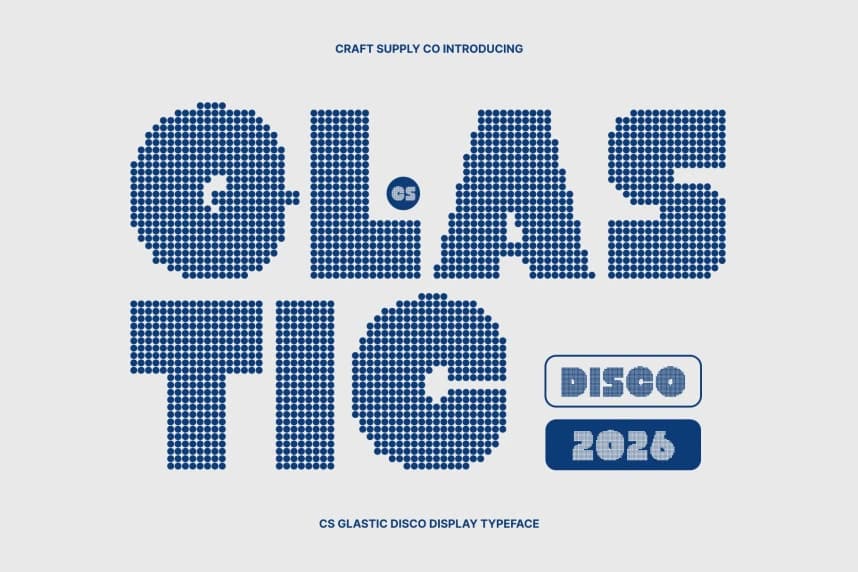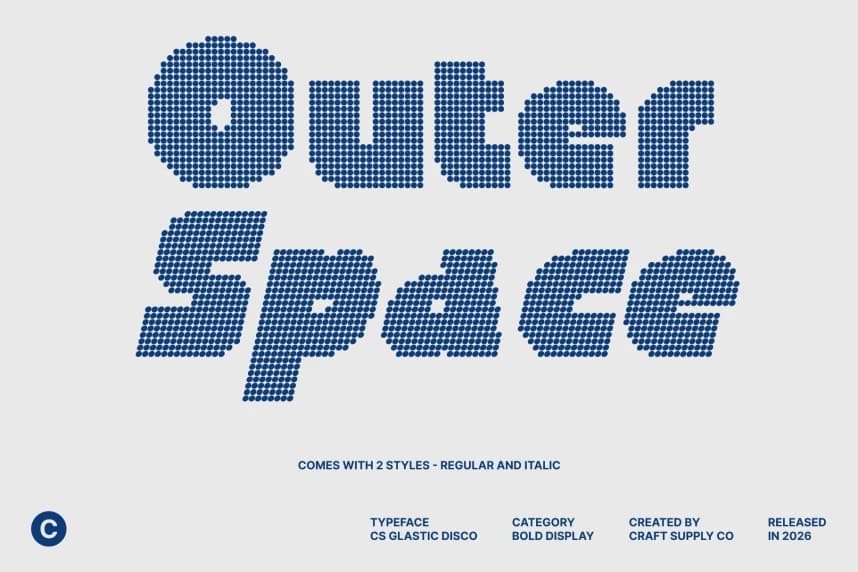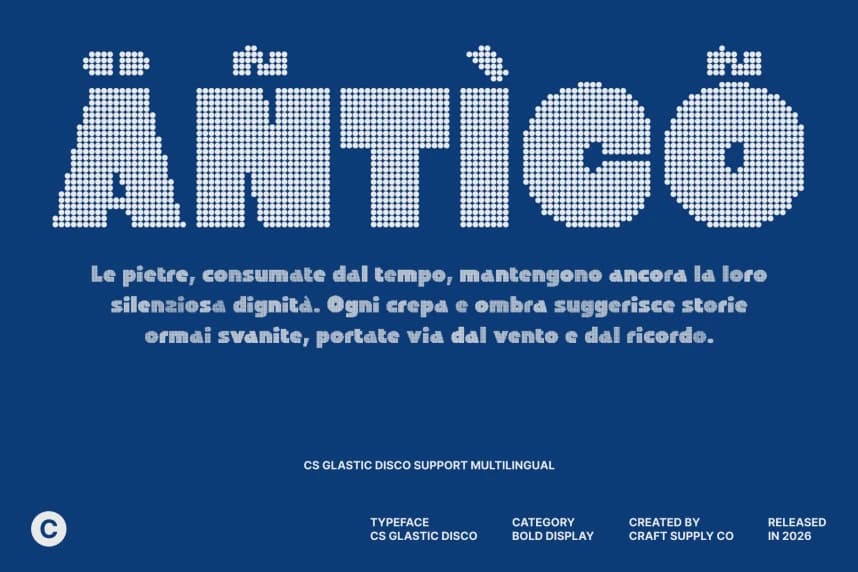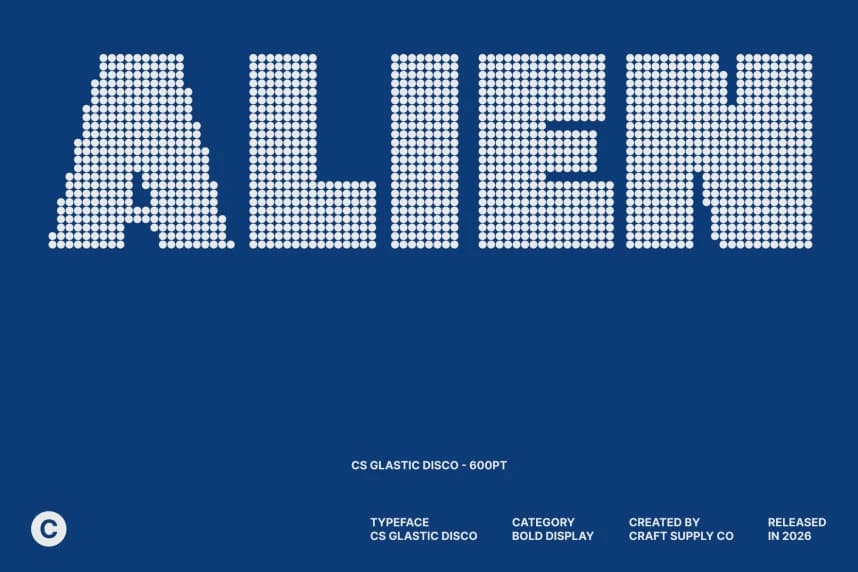
CS Glastic Disco Font
CS Glastic Disco Font – Bold Geometry with Funky Modern Energy Modern Sans Serif Display Font with Disco-Driven Impact This is a modern sans serif display font designed to deliver bold visual impact through strong geometric construction